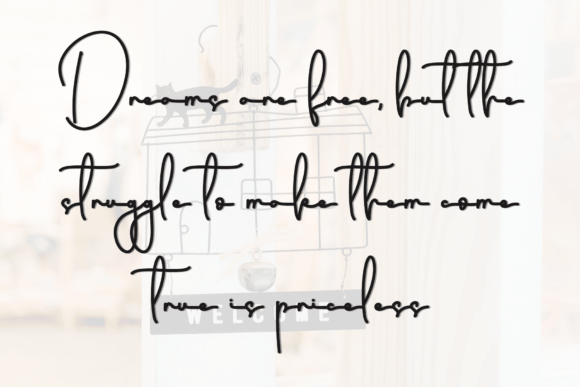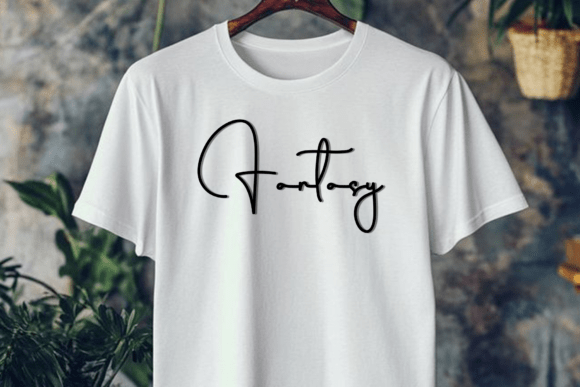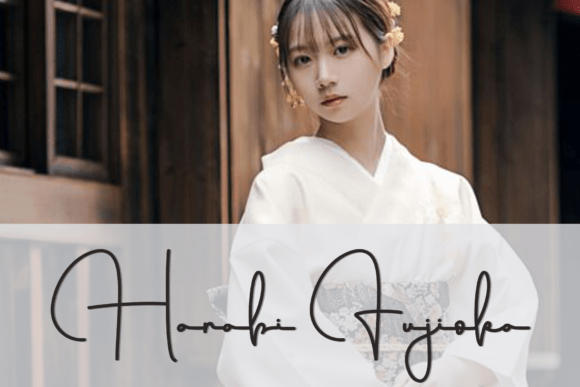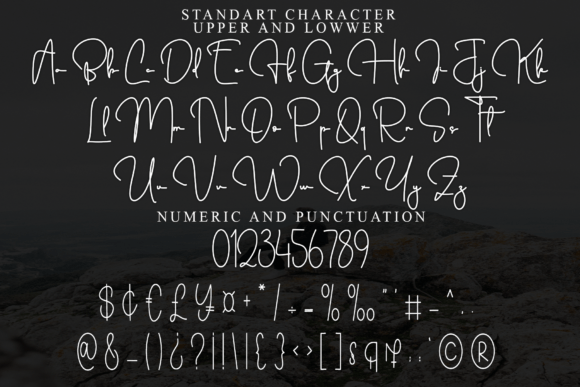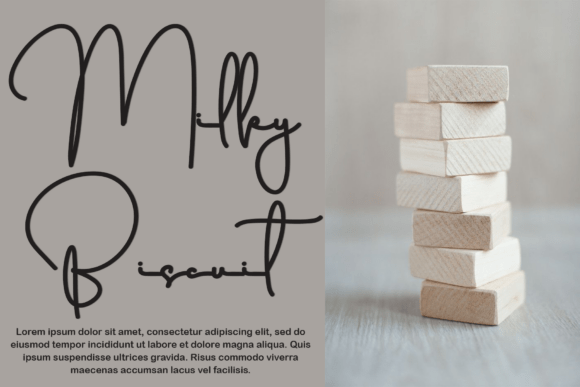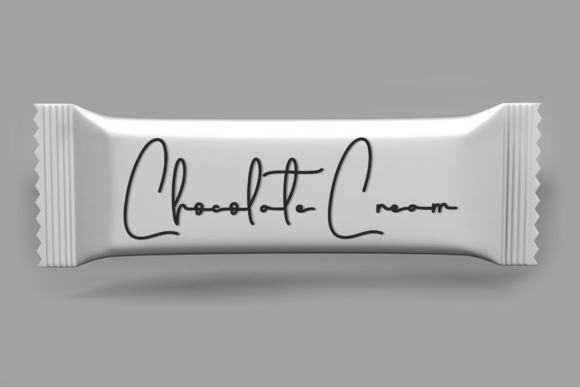
Introducing Farmhouse Font: A Festive and Merry Typeface for the Holiday Season
The holiday season is upon us, and what better way to get into the spirit than with a font that’s as festive and merry as Farmhouse Font? This delightful typeface is designed to capture the magic of the holiday season, with its decorative elements and whimsical flair. Whether you’re a designer, crafter, or simply someone who loves the holidays, Farmhouse Font is the perfect addition to your typography collection.
A Font that Adds Enchantment to Your Designs
Farmhouse Font is more than just a typeface – it’s an experience. With its intricate details and playful charm, it adds a touch of enchantment to any design. Imagine creating greeting cards, gift tags, and holiday-themed projects that transport your recipients to a winter wonderland. This font brings a cheerful and nostalgic ambiance to your words, making it perfect for anyone looking to add a little holiday magic to their designs.
Farmhouse Font is a dream come true for designers and crafters who love working with typography. Its decorative elements and whimsical flair make it perfect for a wide range of projects, from holiday-themed invitations and greeting cards to gift tags and wrapping paper. Whether you’re creating digital or physical products, this font is sure to add a touch of festive fun to your designs.
One of the best things about Farmhouse Font is that it’s PUA (Private Use Area) encoded. This means that you can access all of the amazing glyphs and ligatures with ease, giving you even more creative possibilities. With PUA encoding, you can unlock the full potential of this font and take your designs to the next level.
What You Can Create with Farmhouse Font
The possibilities are endless with Farmhouse Font! Here are just a few ideas to get you started:
- Holiday greeting cards and invitations
- Gift tags and wrapping paper
- Holiday-themed social media graphics and posts
- Festive flyers and brochures
- Personalized holiday gifts, such as cookie jars and mugs
Tips for Getting the Most Out of Farmhouse Font
To get the most out of Farmhouse Font, here are a few tips to keep in mind:
- Experiment with different font sizes and colors to add depth and interest to your designs
- Use the font’s decorative elements and ligatures to add a touch of whimsy to your designs
- Pair Farmhouse Font with other fonts to create a unique and eye-catching combination
- Don’t be afraid to get creative and try new things – that’s what makes designing with Farmhouse Font so much fun!
Whether you’re a seasoned designer or just starting out, Farmhouse Font is a great addition to your typography collection. Its versatility and charm make it perfect for a wide range of projects, from holiday-themed designs to everyday typography. So go ahead, get creative, and let Farmhouse Font bring a little holiday cheer to your designs!